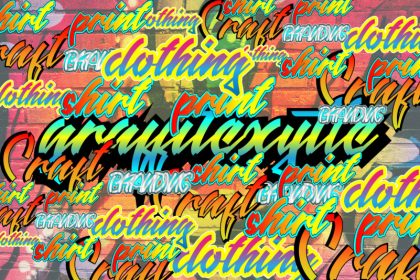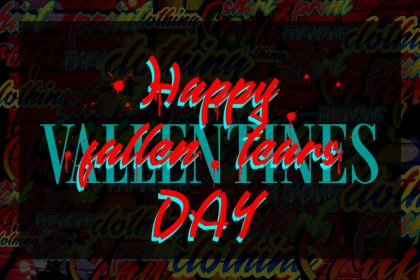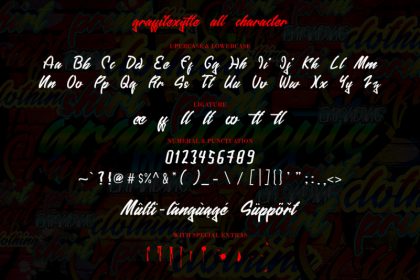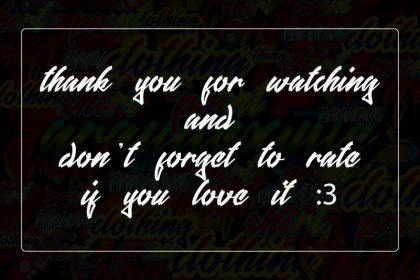
Graffitexytte Font
Graffitexytte Graffiti Font is a graffiti font with a block script style. It was inspired by street writings with high artistic value.
Graffitexytte is suitable for mobile game headlines, also very suitable for adding a unique and striking touch to your print designs, such as tshirts, stickers, flyers, and so on.
Features :
– Upercase & lowercase
– Numeral & punctuation
– Multi-language support
– Ligature and exrtas